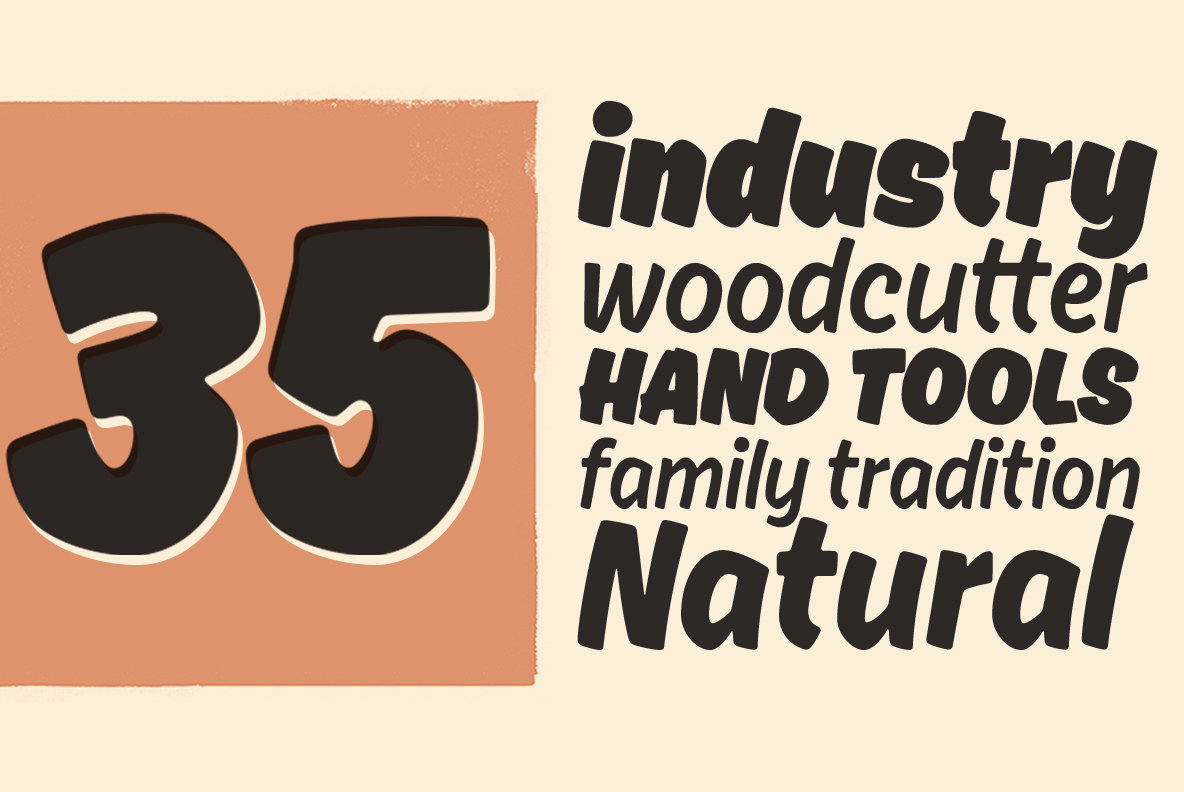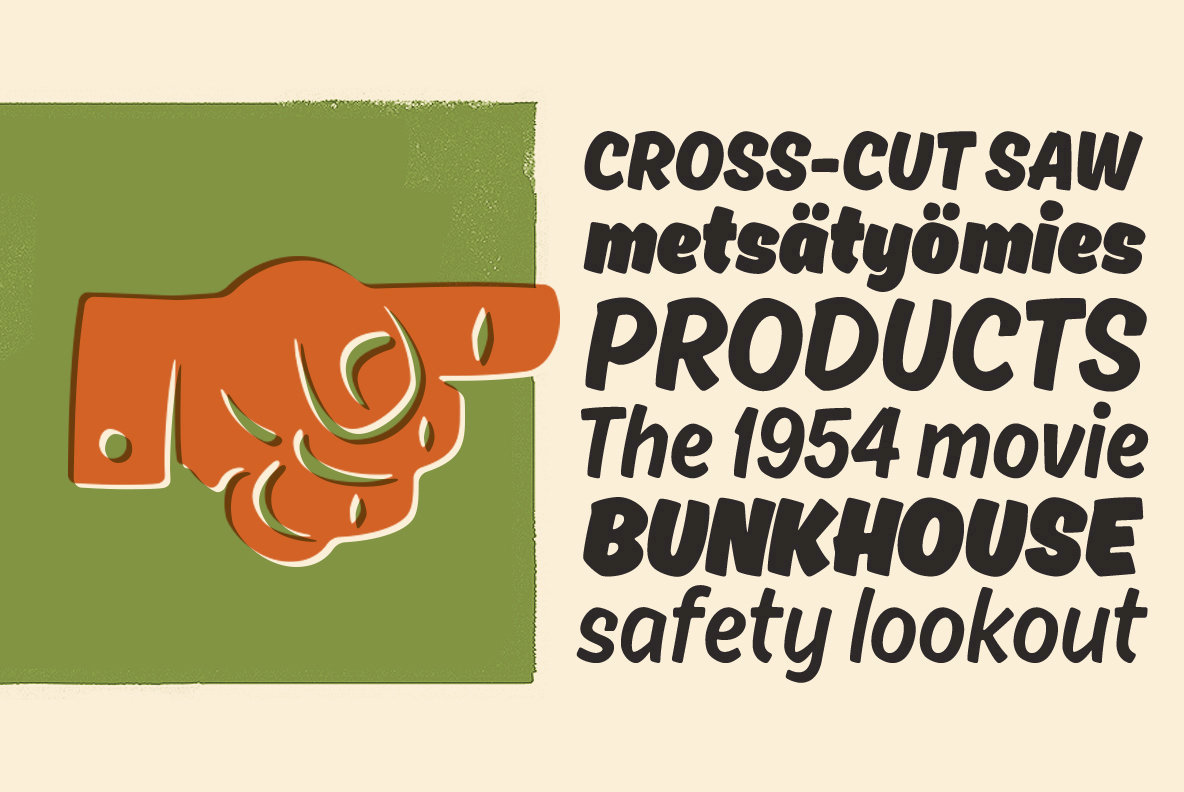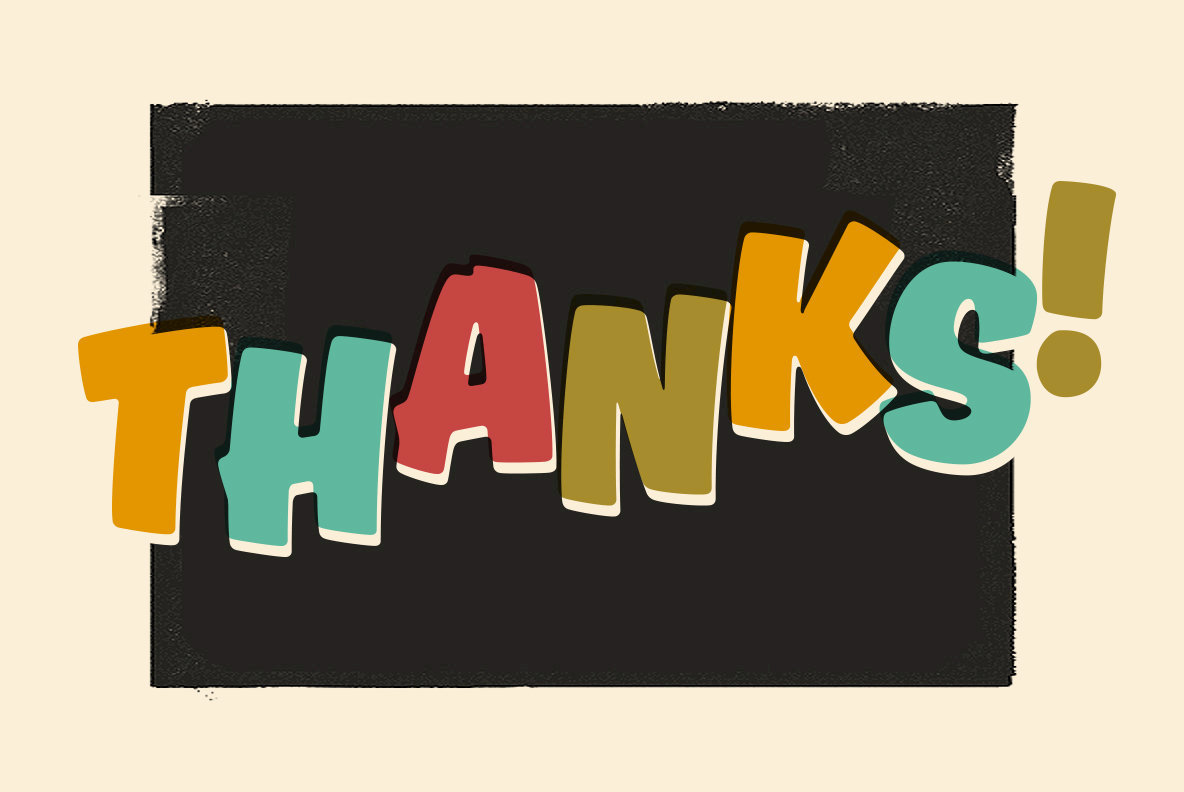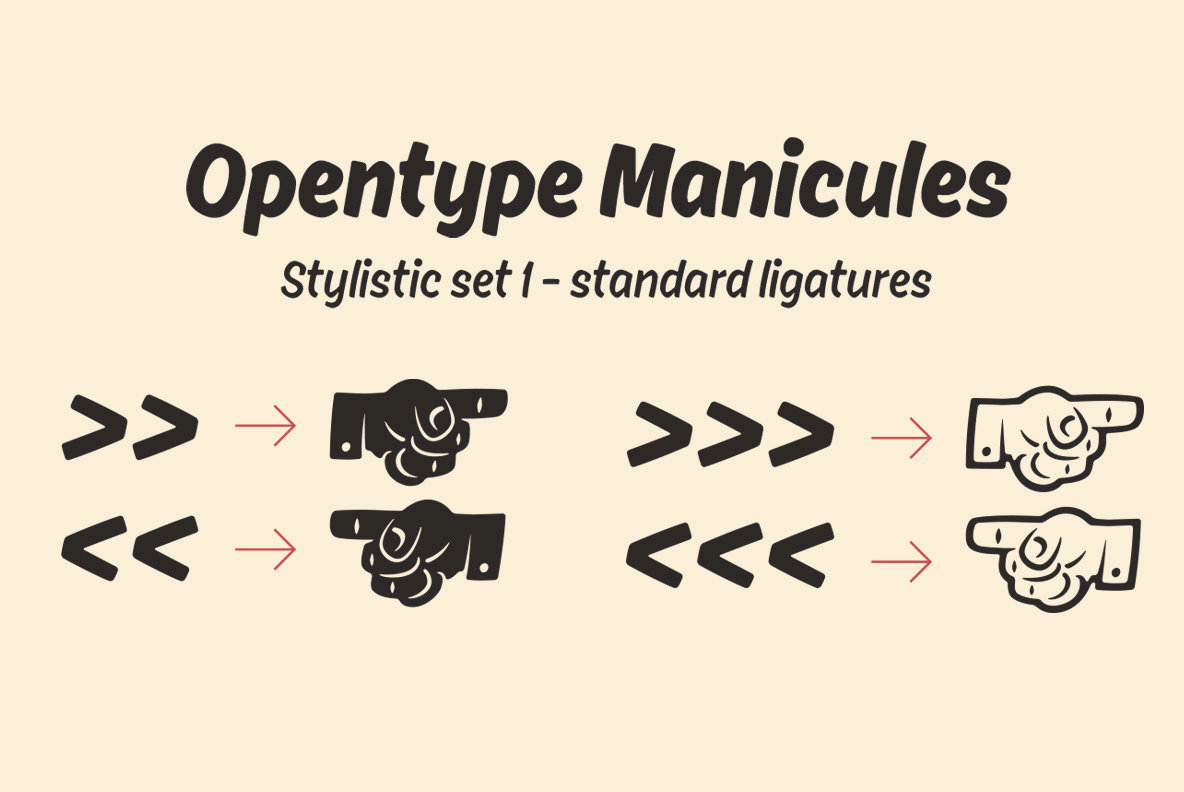
Ahkio is a brushed disconnected script family of 5 fonts. Ahkio’s roots are in 1930s sign painting and showcard lettering but with a modern and individual twist. Main characteristics are soft, rounded forms and a bit curved stems.
Ahkio is a friendly and gentle font that suits well in titles, packages, logos and for example posters. 5 weights makes Ahkio a versatile font that gives you a possibility to add contrast and interest to your typography.